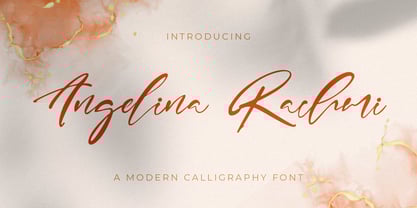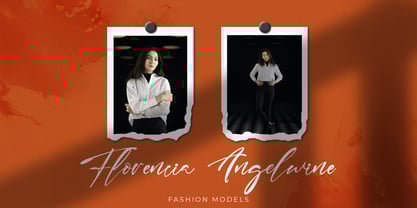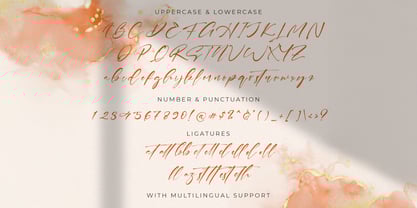
Angelina Rachmi
by Stringlabs Creative Studio
The Angelina Rachmi Font Family was designed by Virgiawan Listanto and published by Stringlabs Creative Studio. Angelina Rachmi contains 1 styles. More about this family
Angelina Rachmi is a graceful calligraphy font that blends elegance with a delicate hand-lettered style. Flowing curves, stylish swashes, and smooth ligatures make this font a perfect choice for romantic and luxurious design projects.
Designers: Virgiawan Listanto
Foundry: Stringlabs Creative Studio